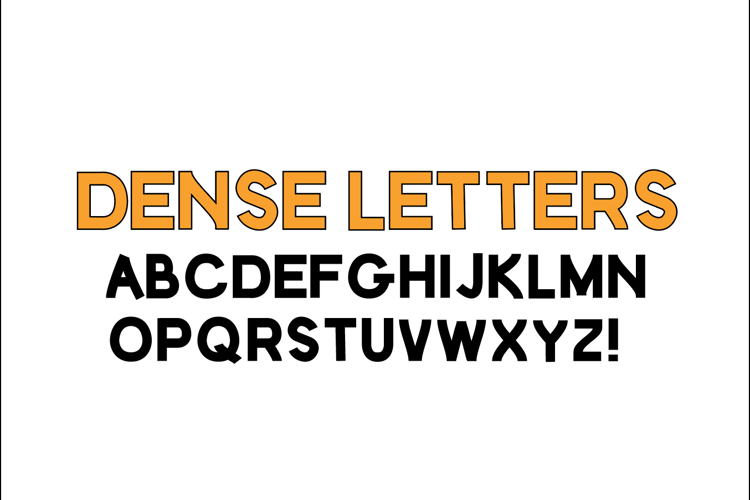
Dense Letters Font
About Dense Letters Font
Some thick, all-caps letters for you to use!
Note: no numbers, and only punctuation is an exclamation mark (!)